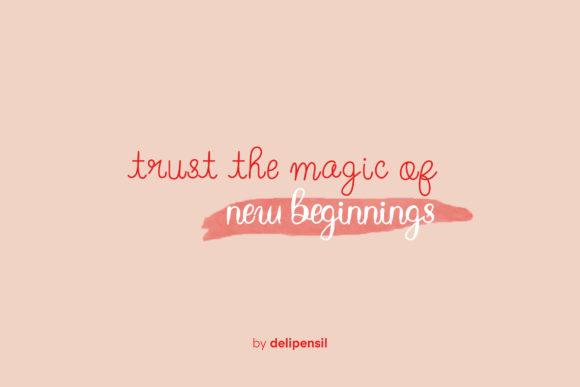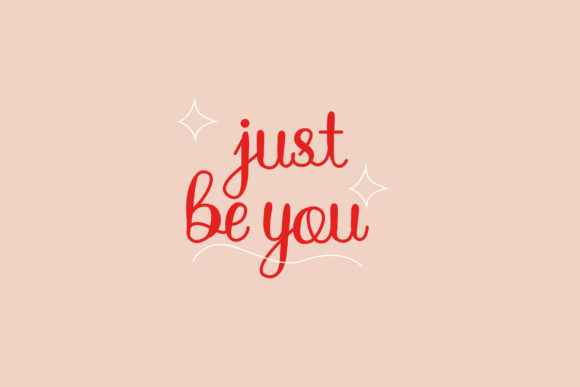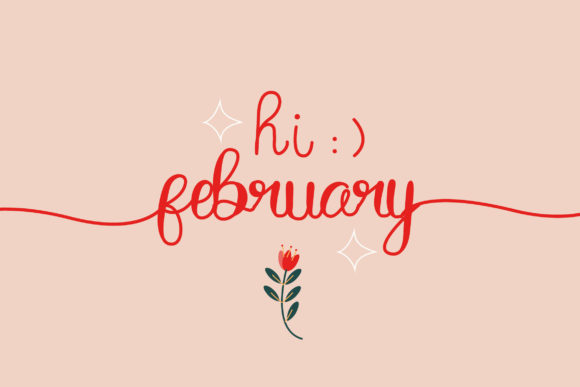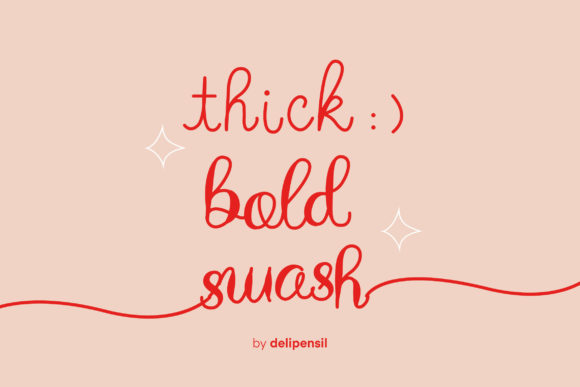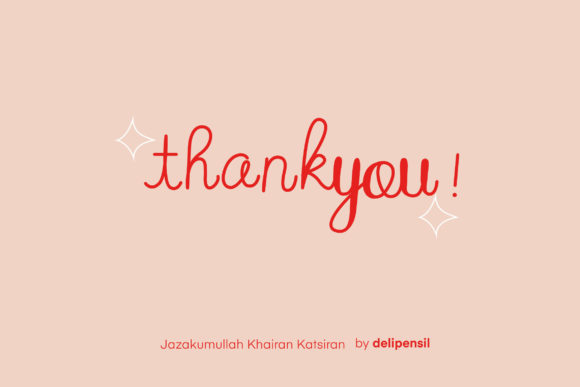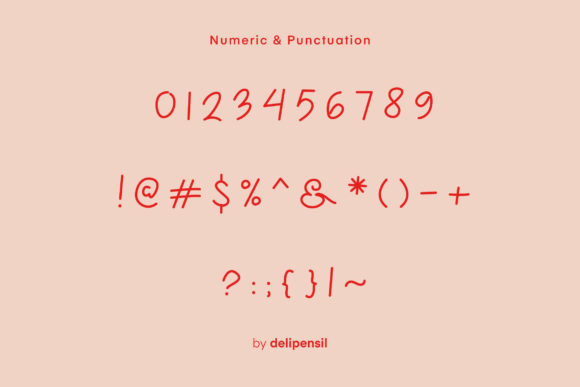
Introduction to Hello Elena Font
Have you ever found yourself scribbling down a brilliant idea in the middle of a coffee shop, only to wish you could turn those messy scribbles into a beautiful, professional design? That’s where the Hello Elena Font comes in – a stunning script font that brings a touch of elegance to your creative projects. With its ravishing style, this font is perfect for designers looking to add a handwritten touch to their work.
As a valuable design resource, the Hello Elena Font offers high-quality graphics that can be easily downloaded and used in a variety of contexts, from wedding invitations to logos and business cards. Its transparent background makes it easy to incorporate into any design, allowing you to focus on bringing your creative vision to life.
Whether you’re working on a free download or a paid project, the Hello Elena Font is an excellent choice for designers who want to create something truly special. Its unique style and versatility make it an essential addition to any design toolkit.
Key Features of Hello Elena Font
- High-quality design resource for creative projects, ideal for digital artwork and print materials.
- Features a unique, elegant design with intricate details, perfect for adding a touch of sophistication to any project.
- Perfect for use in digital art, graphic design, and print materials, including logos, posters, and business cards.
Honest Review: Hello Elena Font
As a designer, I’m always on the lookout for high-quality fonts to enhance my creative projects. The Hello Elena Font caught my attention with its elegant and modern design. ✨
I downloaded the font for free and was impressed by its crisp, clear characters. The transparent background makes it easy to use with any background image or color scheme. This feature is particularly useful for designers who want to create visually appealing graphics.
Here are some of the things I like about the Hello Elena Font:
- Clean and modern design
- High-quality characters
- The character set may not be as extensive as some other fonts.
Overall, I’m impressed with the Hello Elena Font. It’s a great design resource for personal projects or small-scale commercial use. However, it’s essential to be aware of the limitations before using it in a professional context.
Tips for Getting the Most Out of Hello Elena Font
Use Hello Elena Font on a transparent background to create a clean and modern design. Experiment with different font sizes and styles to add visual interest to your creative project.
Common Use Cases for Hello Elena Font
Hello Elena Font is suitable for a variety of creative projects, including digital invitations, social media graphics, and marketing materials. Its high-quality design and versatility make it a popular choice among designers.